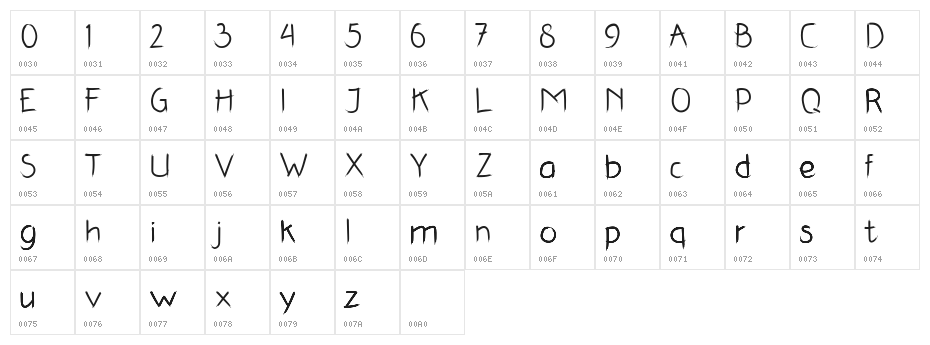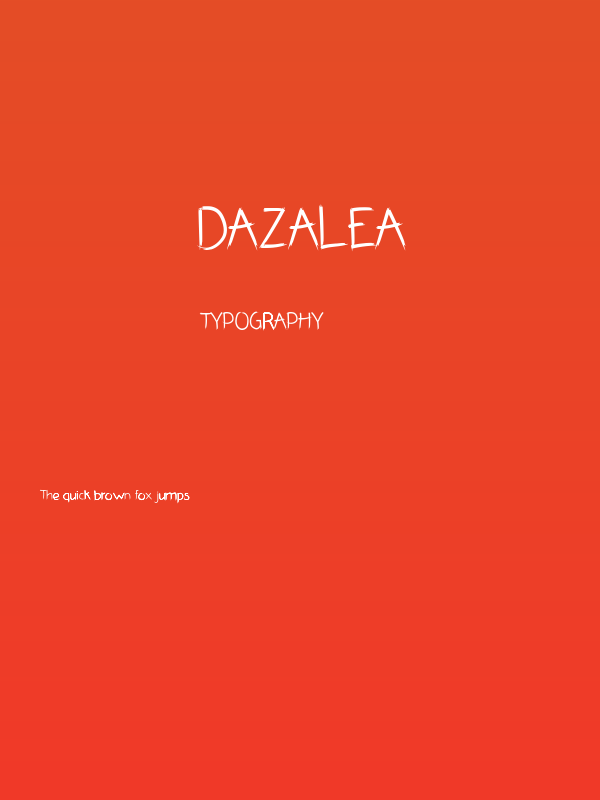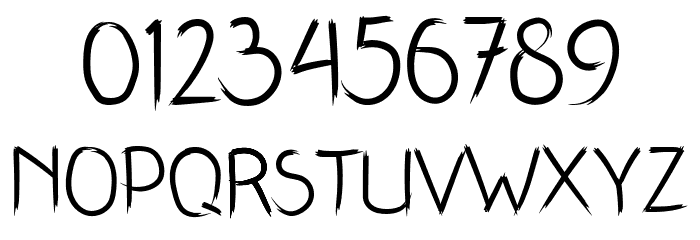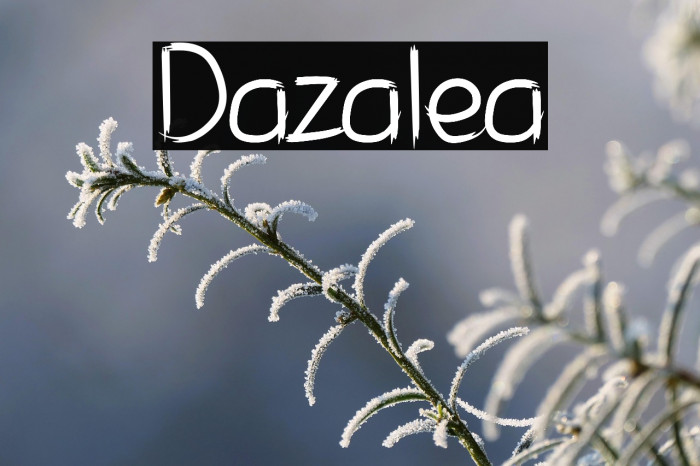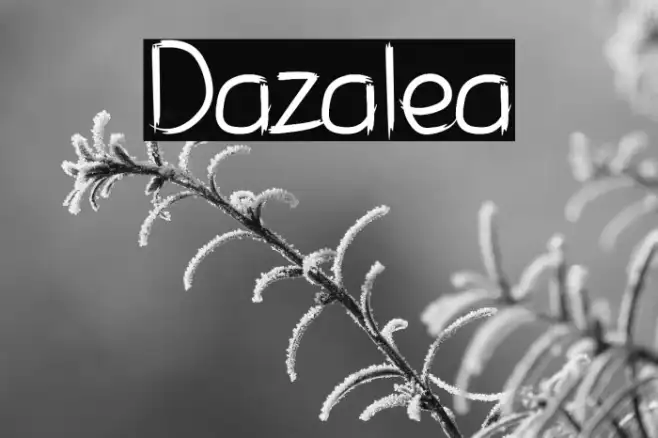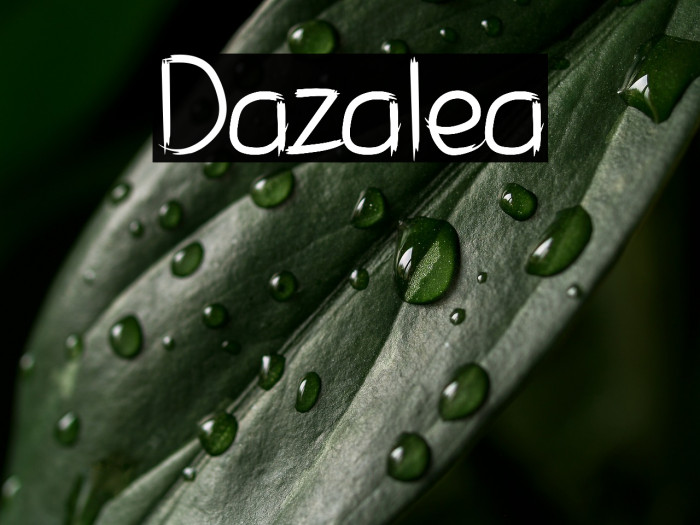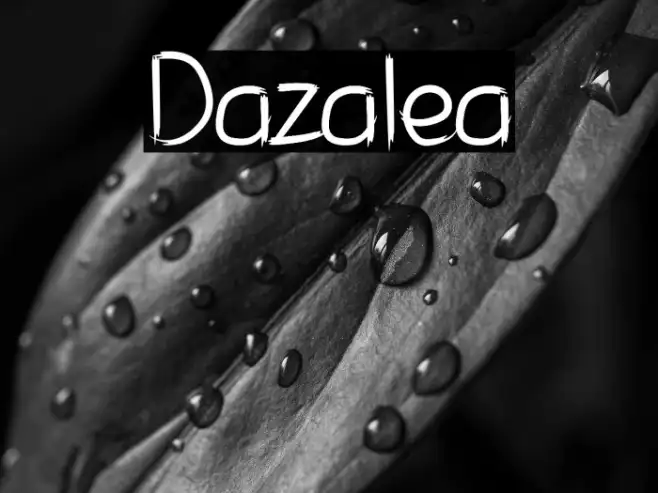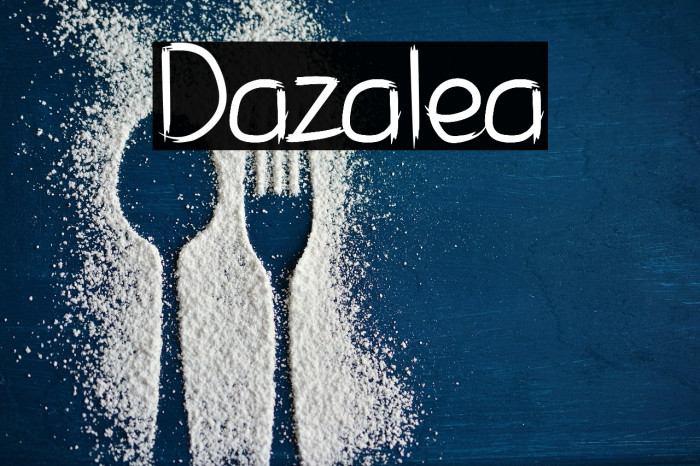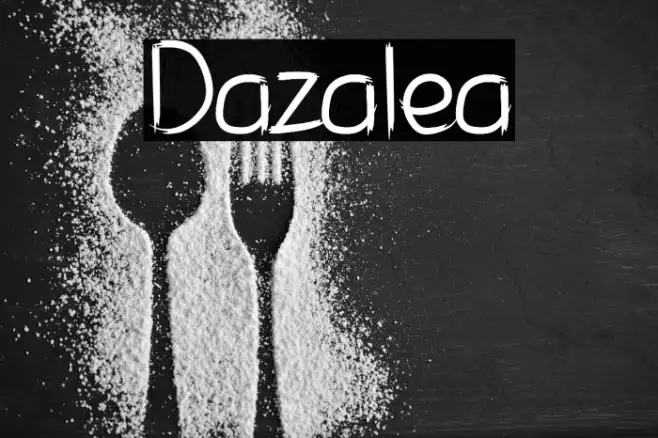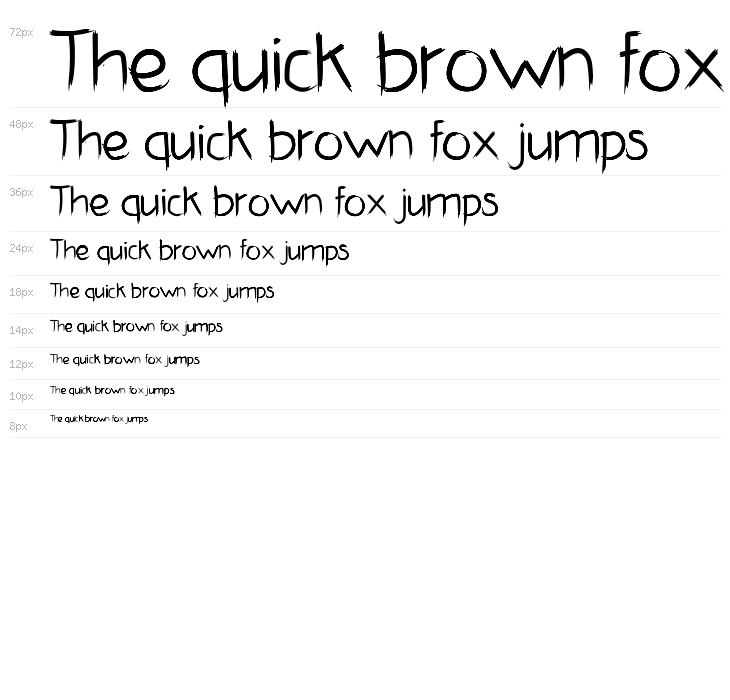
Dazalea Font
Dazalea Description
This font features a dynamic and edgy style with sharp, angular strokes that give it a sense of movement and energy. The characters are slightly irregular, adding a hand-drawn feel that enhances its unique appearance. The uppercase and lowercase letters maintain a consistent height, while the numerals are bold and clear. The special characters are designed to match the overall aesthetic, making this font suitable for creative and artistic projects. Its distinctive look is ideal for grabbing attention and making a statement.
| Overall Style | Modern, Artistic |
| Proposed Projects | Ideal for posters, album covers, branding for edgy or artistic brands, and creative digital content. |